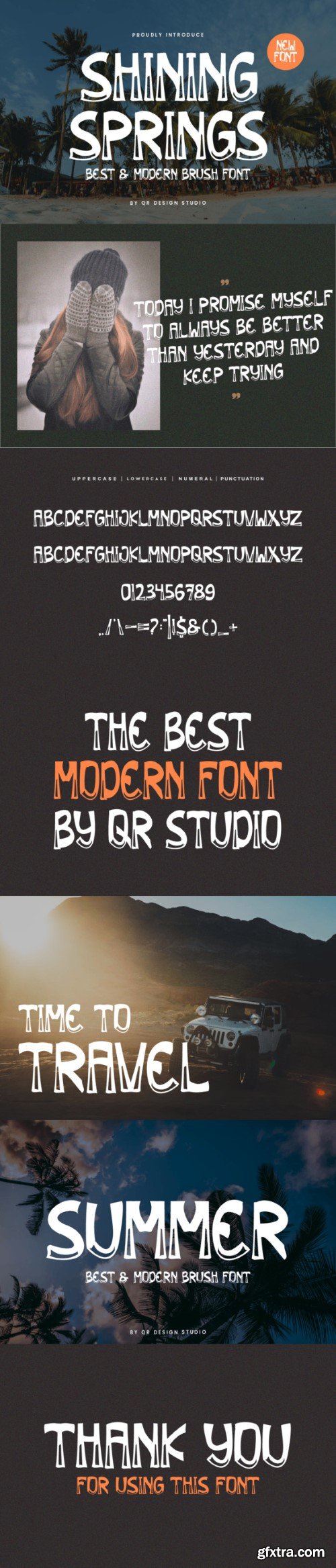
shining springs font
Shining Springs is a sweet and friendly handwritten font. Its natural and unique style makes it incredibly fitting to a large pool of designs. The only limit is your imagination!